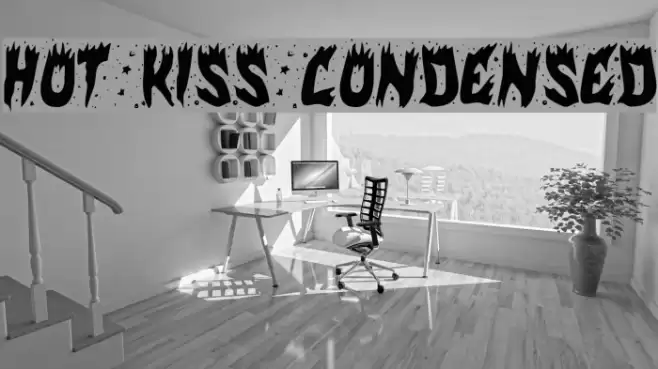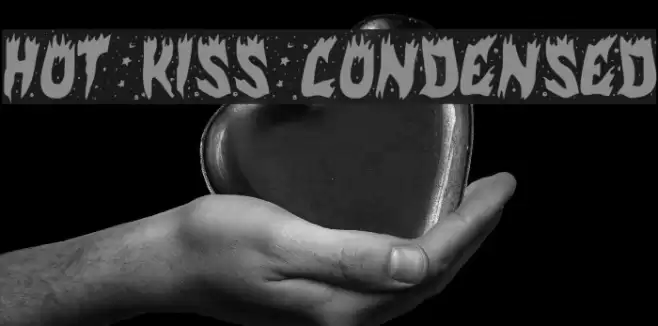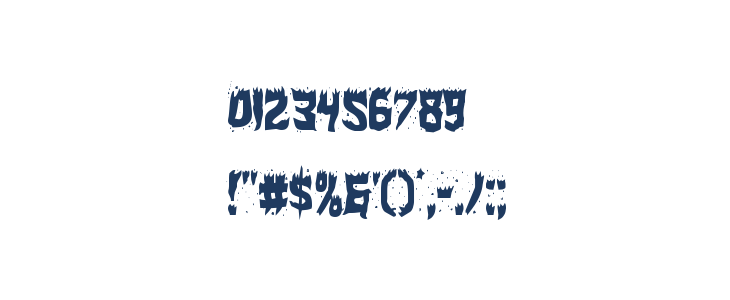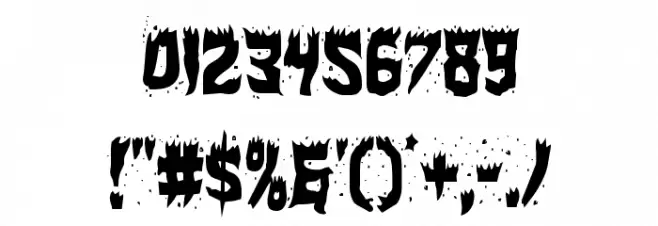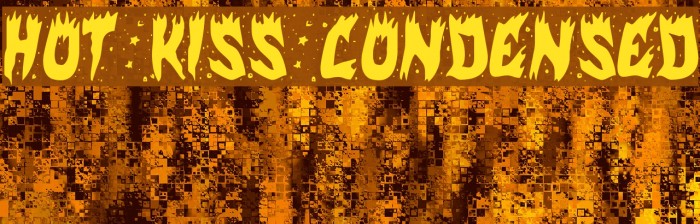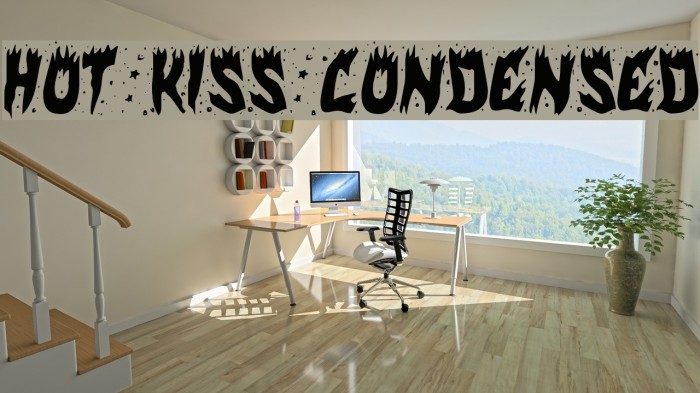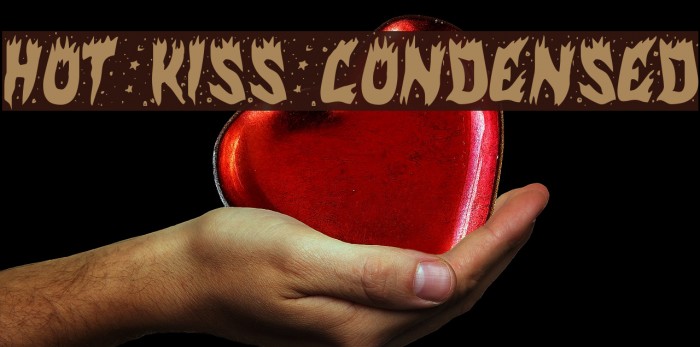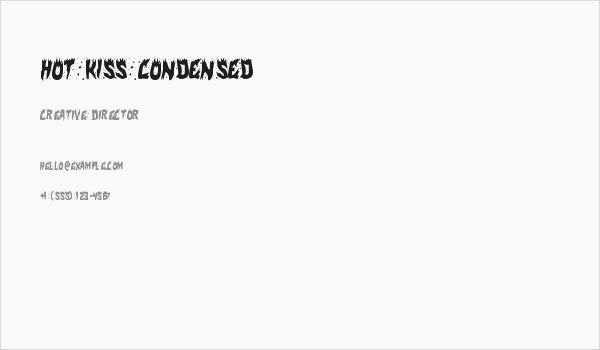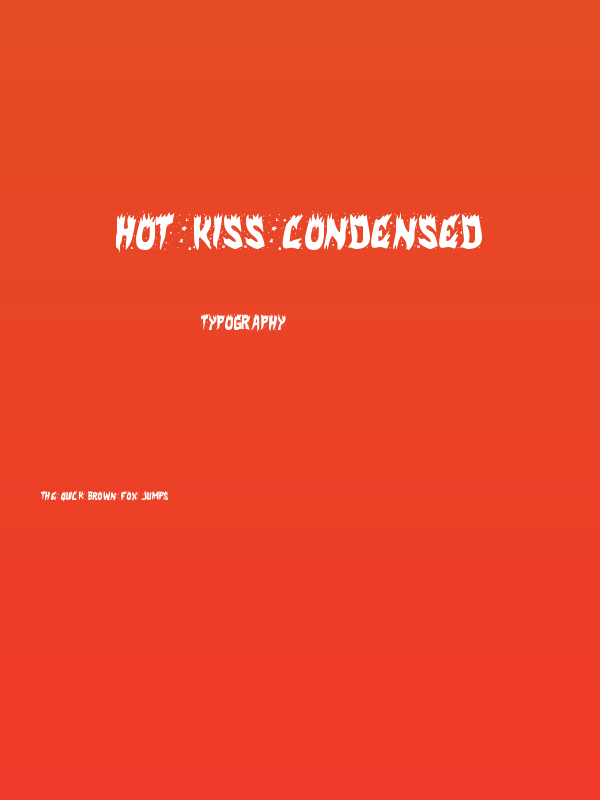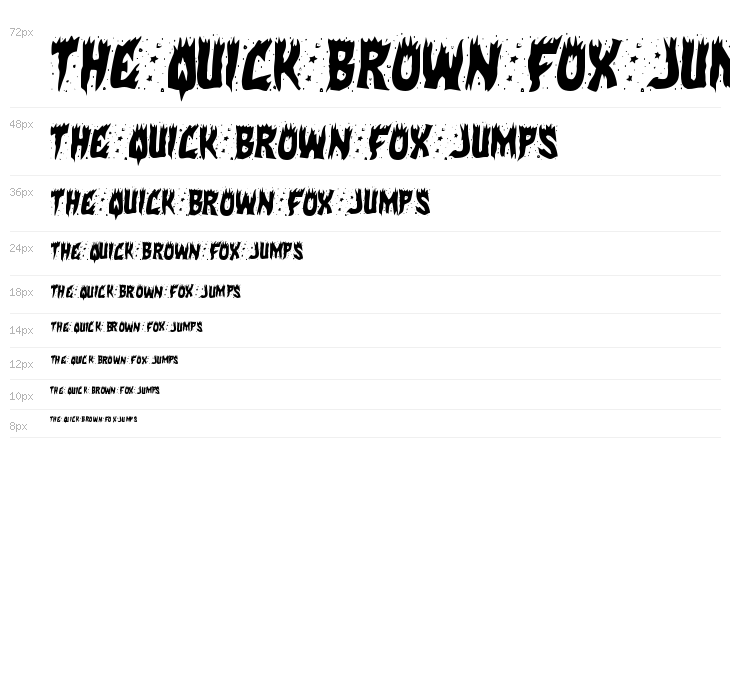
Hot Kiss Condensed Font
Hot Kiss Condensed Description
This font features a bold and dynamic design with sharp, jagged edges that give it a fiery and intense appearance. The characters are condensed, enhancing the dramatic effect and making it suitable for impactful headlines or attention-grabbing designs. The uppercase and lowercase letters maintain a consistent style, with each character exhibiting unique, flame-like extensions. The numbers and special characters follow the same aesthetic, ensuring a cohesive look across all text elements. This font's distinct style makes it ideal for projects that require a bold, energetic, and slightly rebellious touch.
A bold, jagged font with a fiery, condensed style perfect for dramatic headlines from Uncategorized fonts.
- Proposed Projects: Ideal for Halloween-themed designs, music album covers, posters, and edgy branding projects.